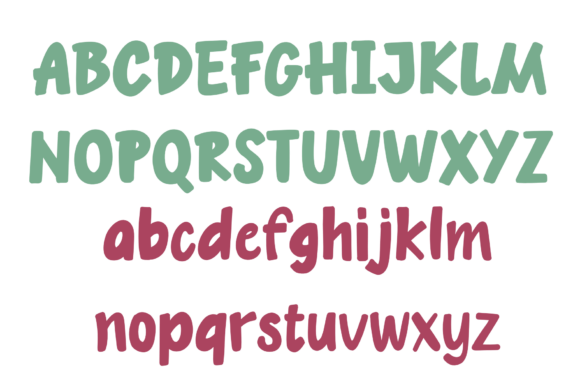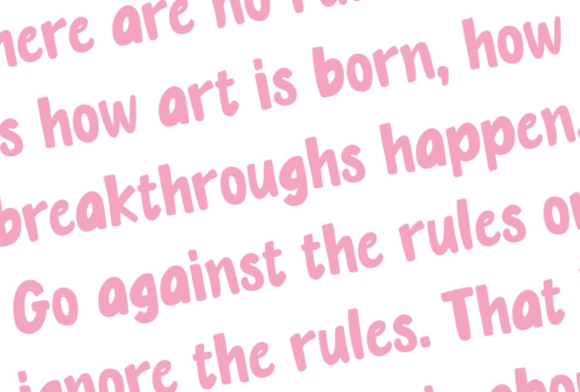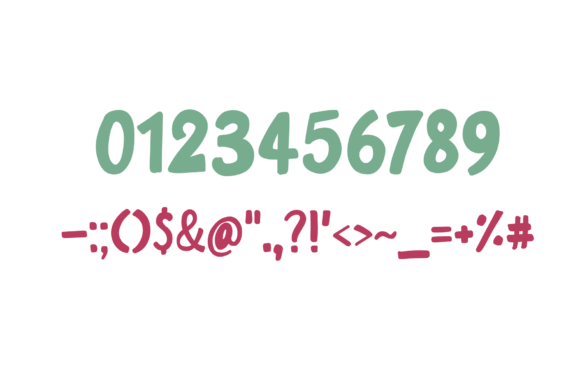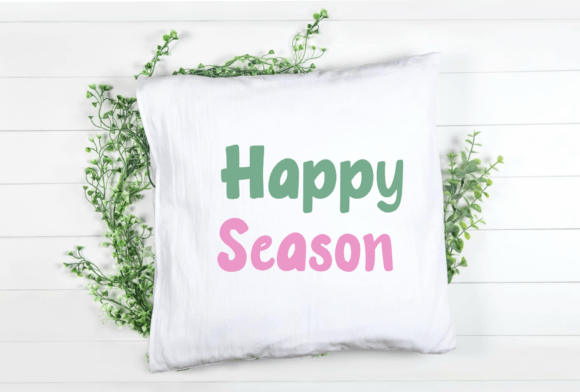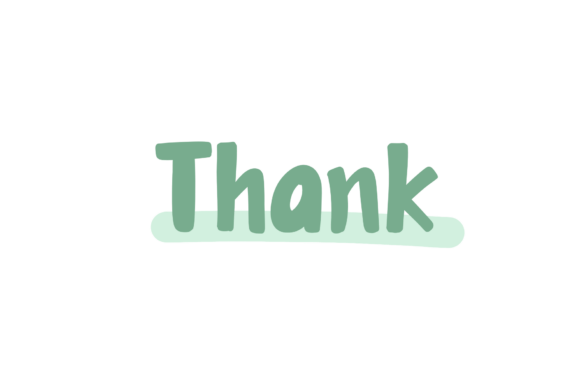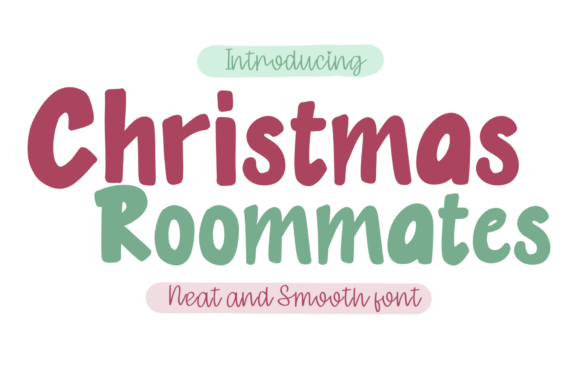
Introducing Christmas Roommates Font: The Perfect Handwritten Companion for Digital Creations
Are you a designer, crafter, or digital note-taker looking for a unique and versatile font to elevate your projects? Look no further than Christmas Roommates Font, a charming handwritten font that’s perfect for adding a personal touch to your digital creations. In this article, we’ll explore the features and benefits of Christmas Roommates Font, and how it can enhance your designs, from digital note-taking to branding, and beyond.
What is Christmas Roommates Font?
Christmas Roommates Font is a beautifully crafted handwritten font that’s designed to bring a touch of warmth and personality to your digital projects. This neat and elegant font is perfect for a wide range of applications, including digital note-taking, Procreate, blog posts, logos, branding, digital planners, invitations, greeting cards, photo albums, decorations, and more.
Key Features of Christmas Roommates Font
- Versatile and Multi-Purpose: Christmas Roommates Font is designed to work seamlessly across various projects and mediums, making it an excellent addition to your font library.
- Supports Multiple Languages: This font supports a wide range of languages, ensuring that you can use it to create content for a global audience.
- Cute and Personal Touch: The handwritten style of Christmas Roommates Font adds a unique and personal touch to any design, making it perfect for digital note-taking, journaling, and scrapbooking.
- iPad and GoodNotes Friendly: This font is optimized for use on iPads and GoodNotes, making it an excellent choice for digital planners, journals, and other creative projects.
Perfect for Digital Note-Taking and Journaling
Christmas Roommates Font is ideal for digital note-takers and journalers who want to add a personal touch to their notes and journals. This font works beautifully with digital planning and journaling apps, such as Procreate, GoodNotes, and more. With Christmas Roommates Font, you can create stunning digital journals, planners, and notes that are both functional and visually appealing.
Enhance Your Branding and Logo Design
Are you looking for a unique font to elevate your branding and logo design? Christmas Roommates Font is an excellent choice for creating custom logos, business cards, and marketing materials. This font’s elegant and handwritten style adds a touch of sophistication and personality to your brand, setting you apart from the competition.
Crafting and Scrapbooking with Christmas Roommates Font
Crafters and scrapbookers will love Christmas Roommates Font for its ability to add a personal touch to their projects. Use this font to create beautiful titles, captions, and journaling in your scrapbooks, photo albums, and other craft projects. With Christmas Roommates Font, you can add a unique and handmade touch to your creations.
Tips and Inspiration for Using Christmas Roommates Font
Here are some tips and inspiration for using Christmas Roommates Font in your projects:
- Pair Christmas Roommates Font with other fonts to create stunning font combinations.
- Use this font to create custom digital planners, journals, and notebooks.
- Add a personal touch to your blog posts, social media graphics, and marketing materials.
Christmas Roommates Font is a versatile and charming handwritten font that’s perfect for designers, crafters, and digital note-takers. With its support for multiple languages, cute and personal touch, and iPad and GoodNotes compatibility, this font is an excellent addition to any creative project. Whether you’re looking to enhance your digital note-taking, branding, or crafting, Christmas Roommates Font is the perfect companion for your creative journey.